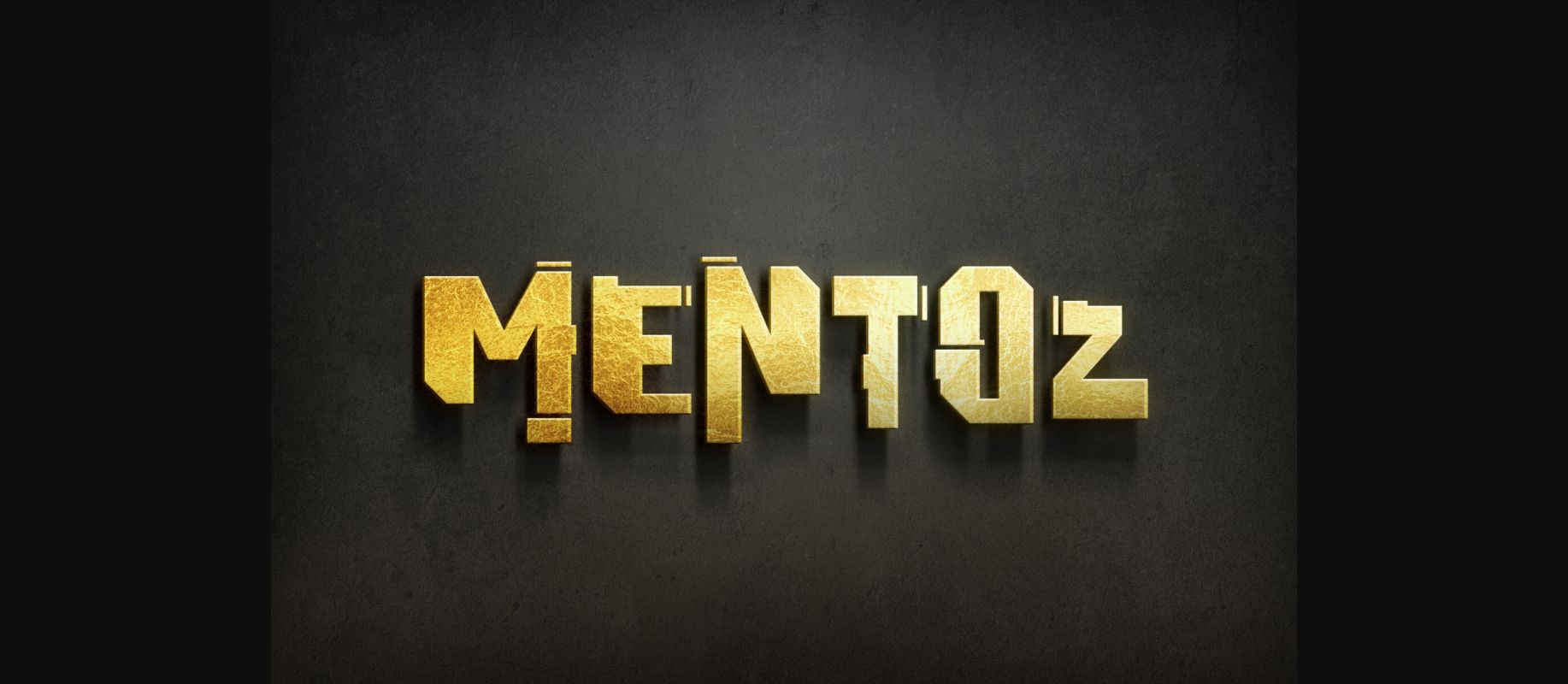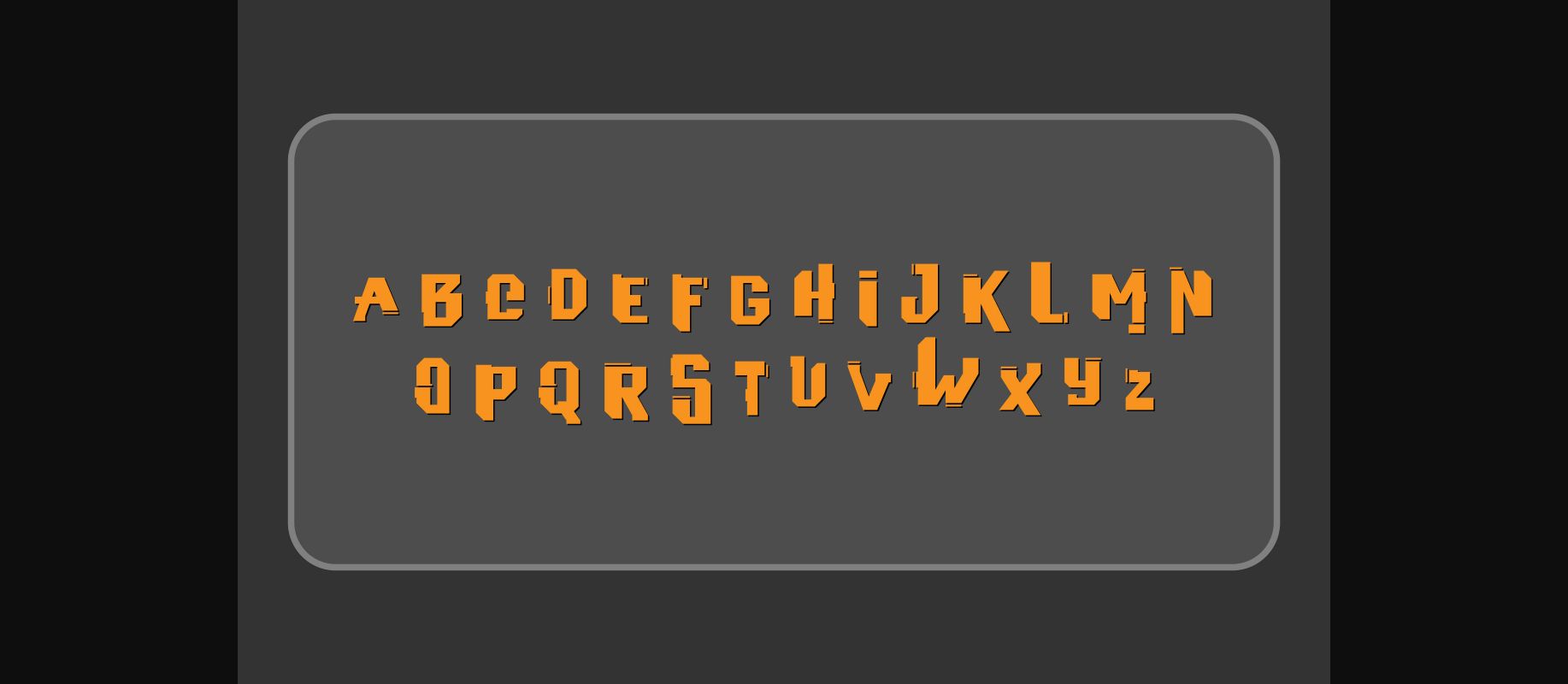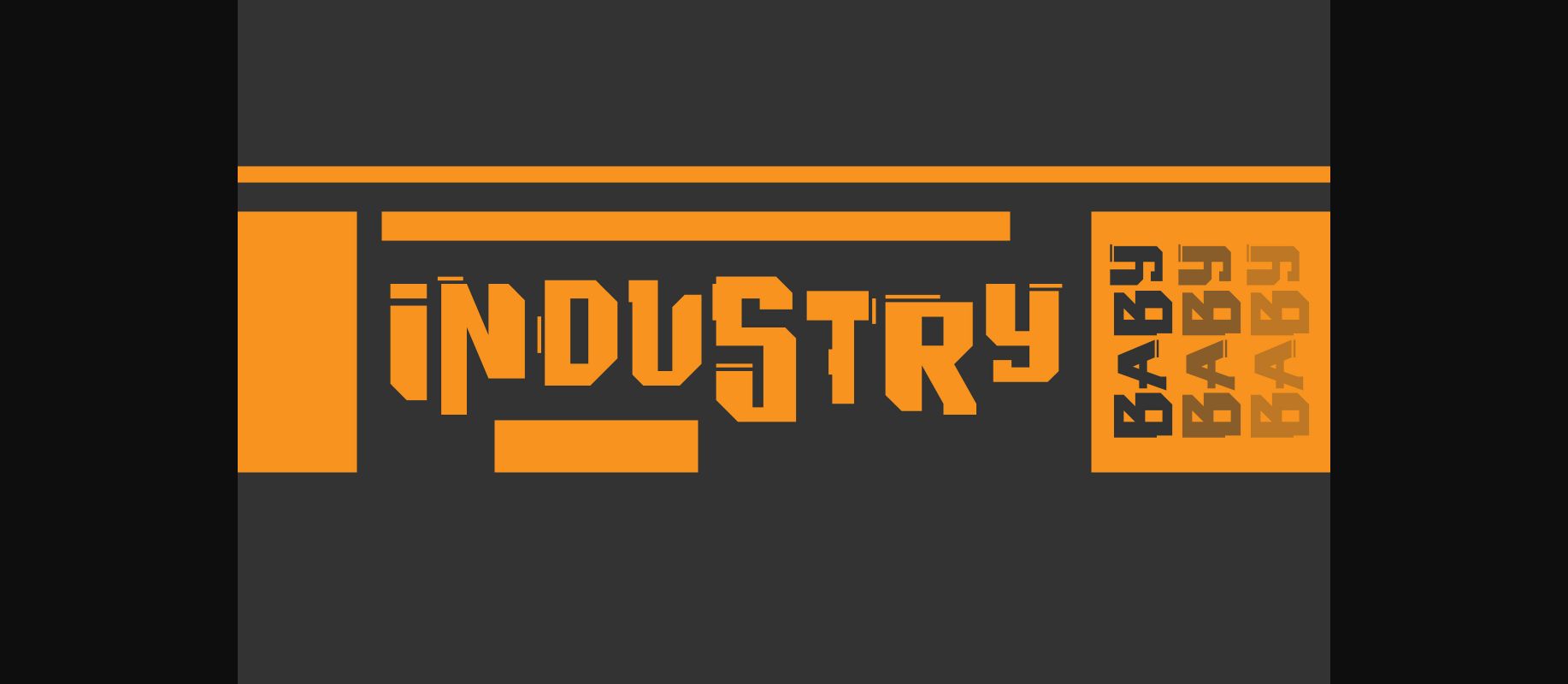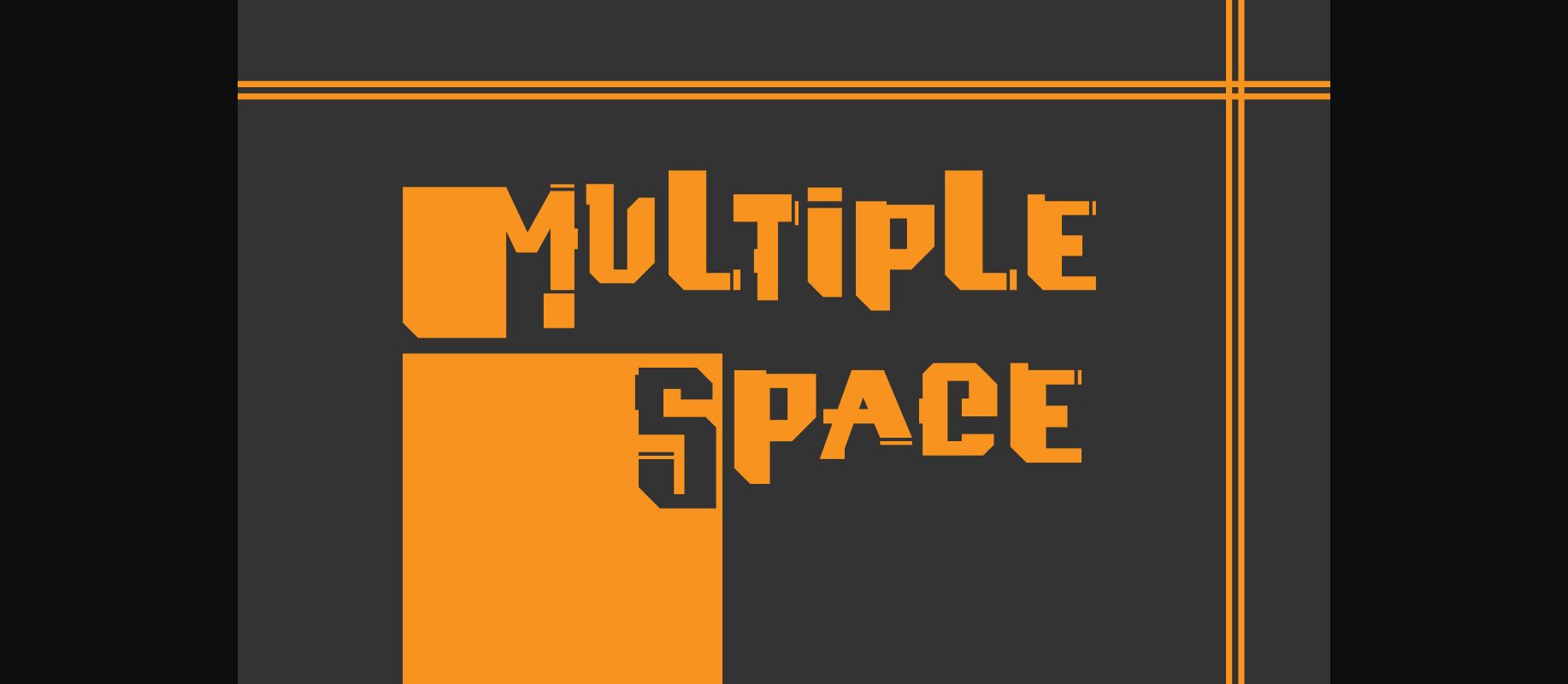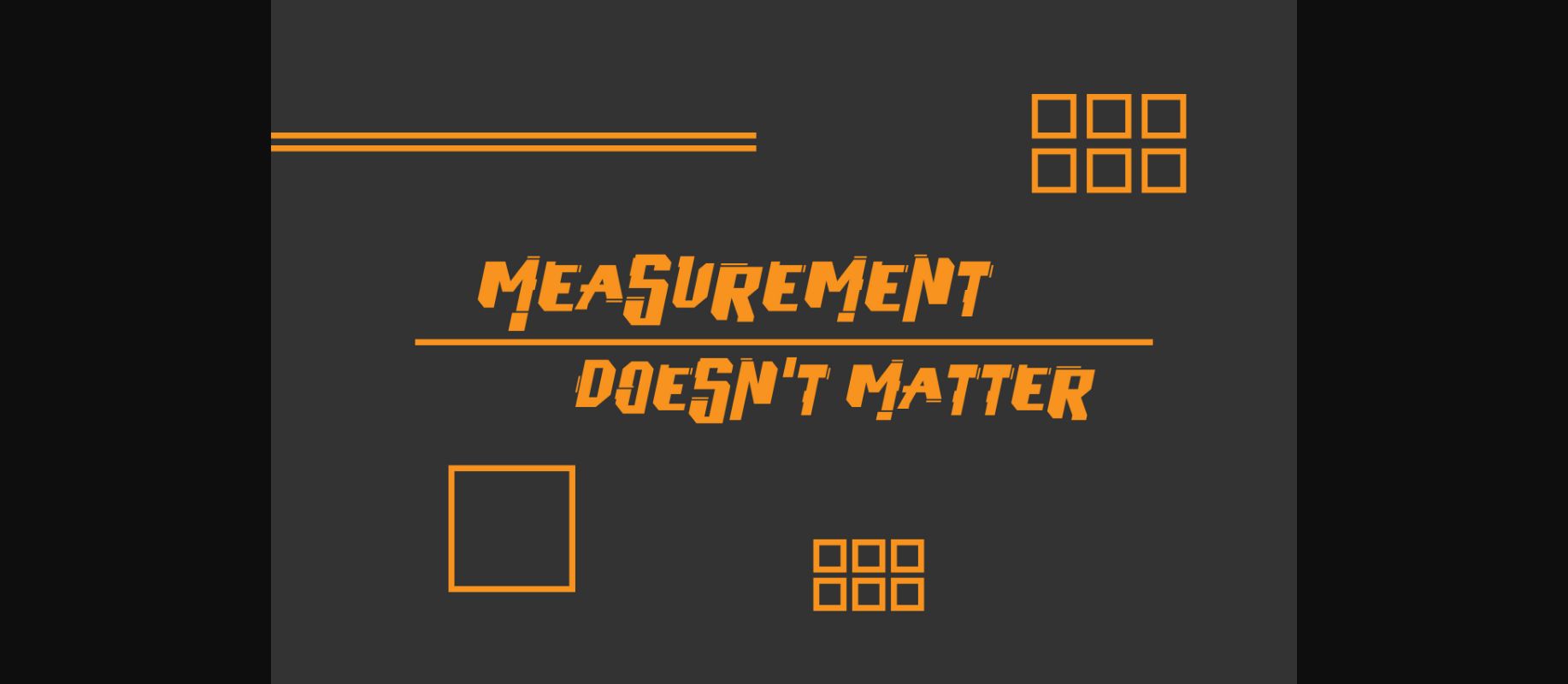
About Mentoz Font
Mentoz is a bold and stylish decorative font, that intertwines Gothic elements with modern qualities, boasting 96 glyphs and 95 characters. Exuding a striking metal vibe, it’s impeccable for crafting compelling movie and dramatic series titles, adding an industrial, edgy aesthetic to your visual projects.